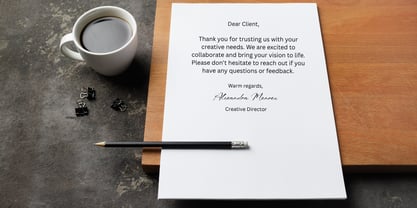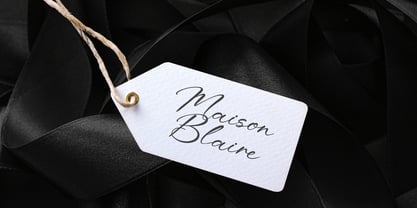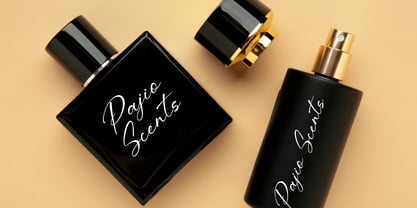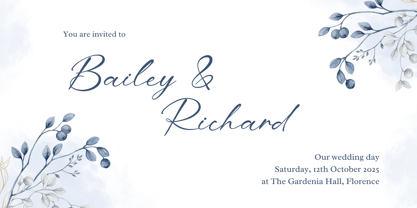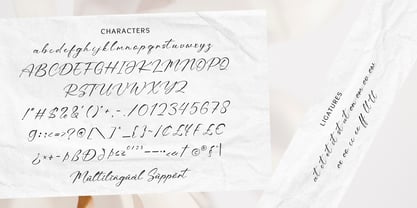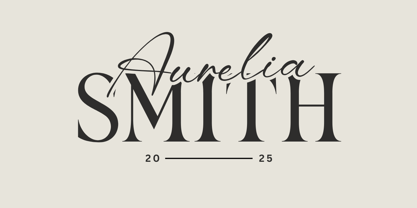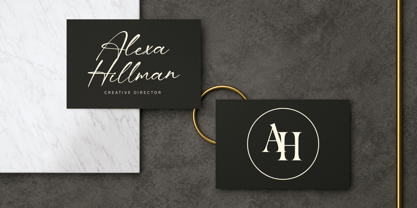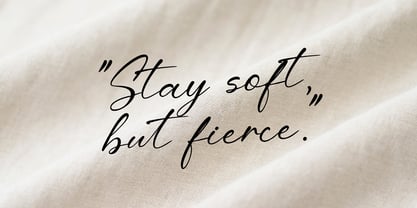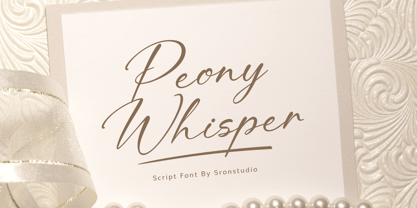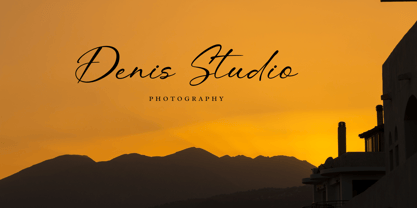
Peony Whisper
by Sronstudio
The Peony Whisper Font Family was designed by Muhamad Yusron Billah and published by Sronstudio. Peony Whisper contains 1 styles. More about this family
Peony Whisper is an elegant and refined signature script font that captures the beauty of natural handwriting. With its graceful strokes, smooth curves, and stylish letterforms, this font is perfect for branding, wedding invitations, product packaging, social media, and personal signatures. Peony Whisper brings a luxurious yet personal feel to any design, making your work stand out with sophistication and charm.
- Uppercase & lowercase characters
- Numerals & punctuation
- Multilingual support